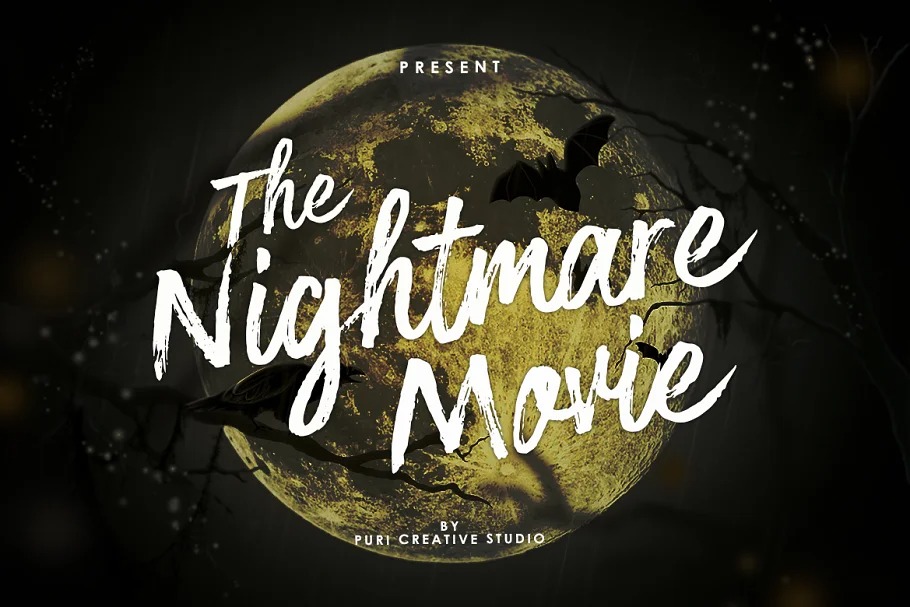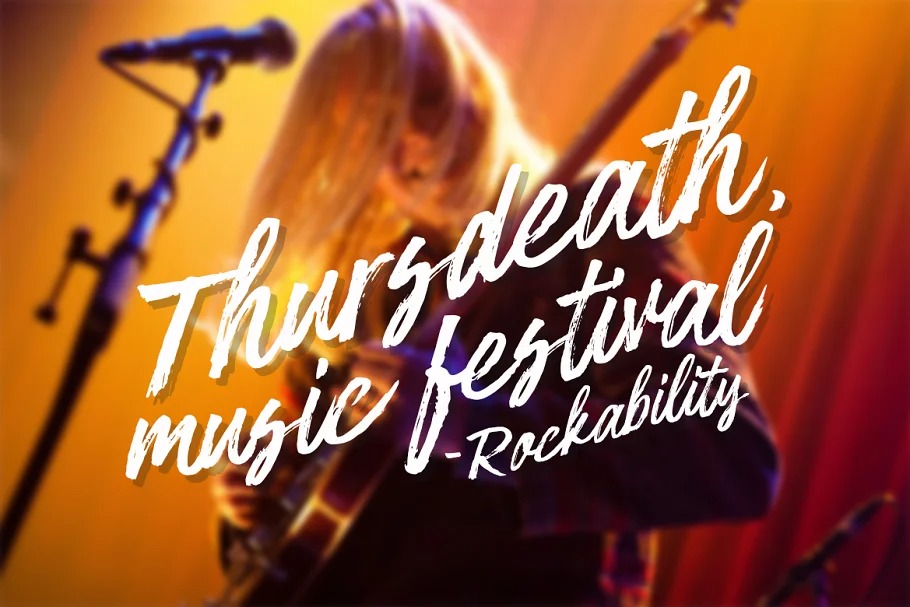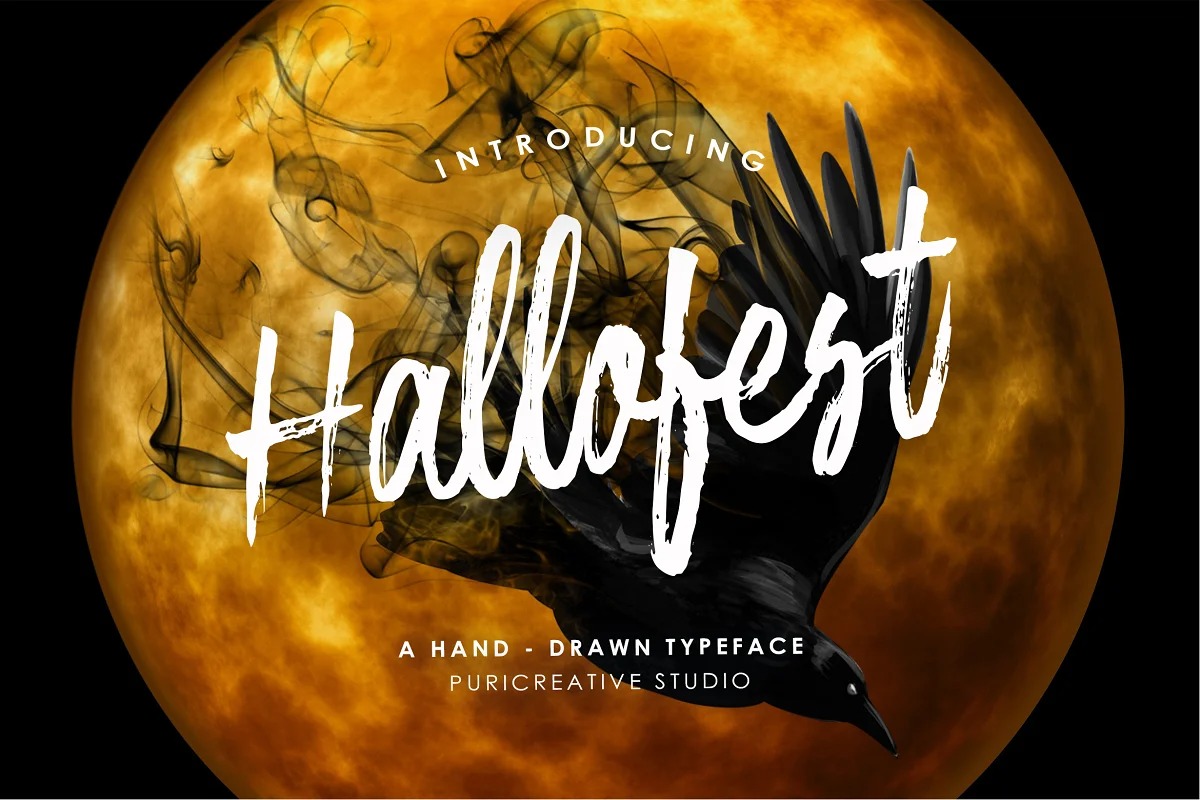
Hallofest Brush Font is a rough hand drawn dry brush script which is purposely made for headline, display or logotype, and signature which need a standout appearing. Hallofest is a Halloween Font has many purpose and suitable for horror, movie, movie poster, modern, halloween, poster, advertising and much more.
Hallofest